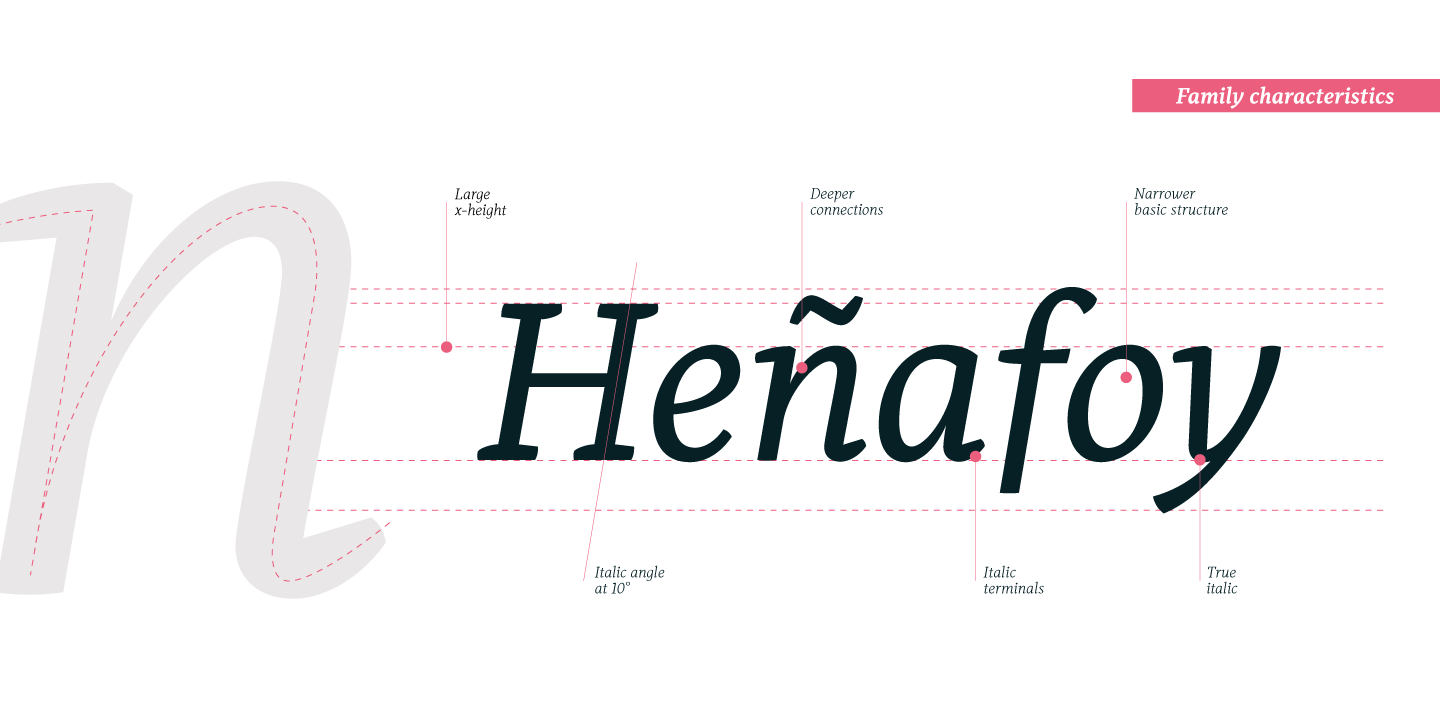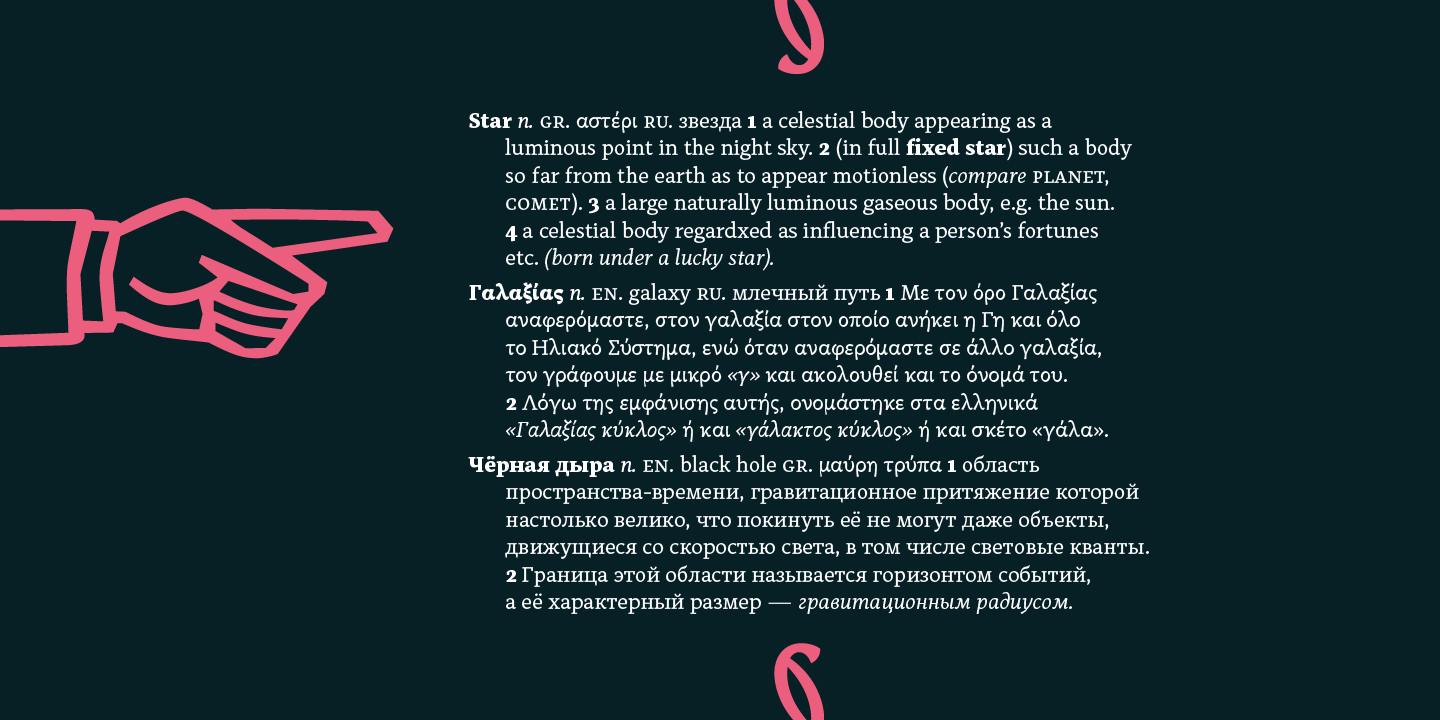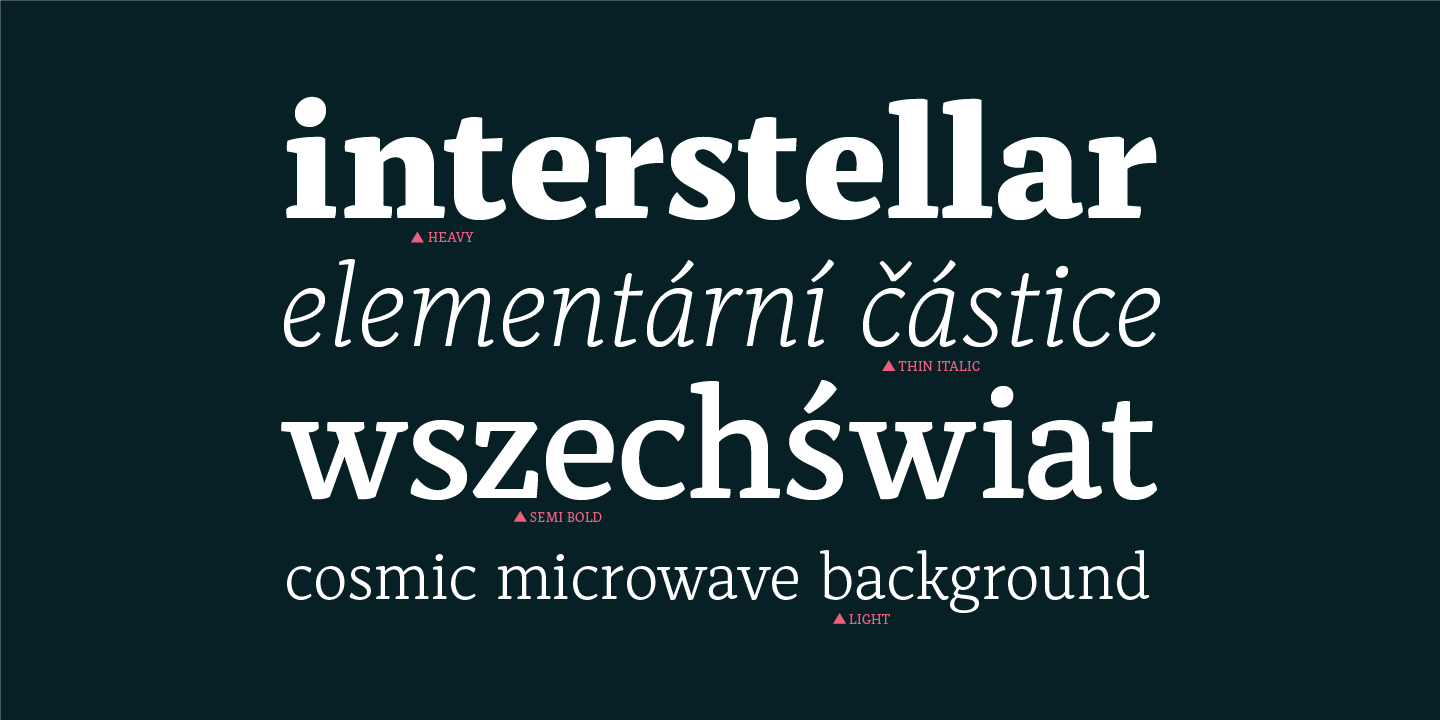
About Alkes
Over 1200 glyphs in 14 styles; True form of italics; Humanist character and proportions; Extended Latin, Extended Cyrillic & Greek scripts; Fit for over 130 languages Moderate contrast; Perfect for text, headlines, and web; Coverage of many OpenType features…